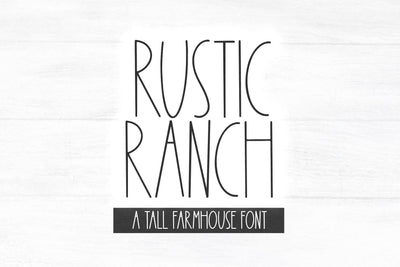
Rustic Ranch - Skinny Farmhouse Font
Rustic Ranch is a tall skinny farmhouse font.
This font is perfect for your farmhouse signs, svg designs, mugs, shirts, logos, pantry labels and more!